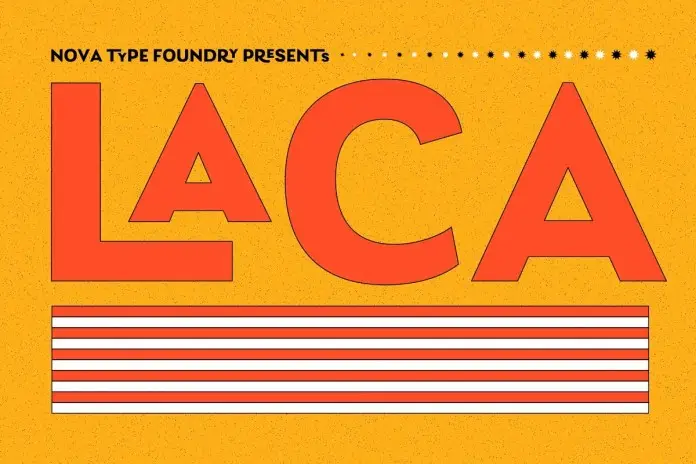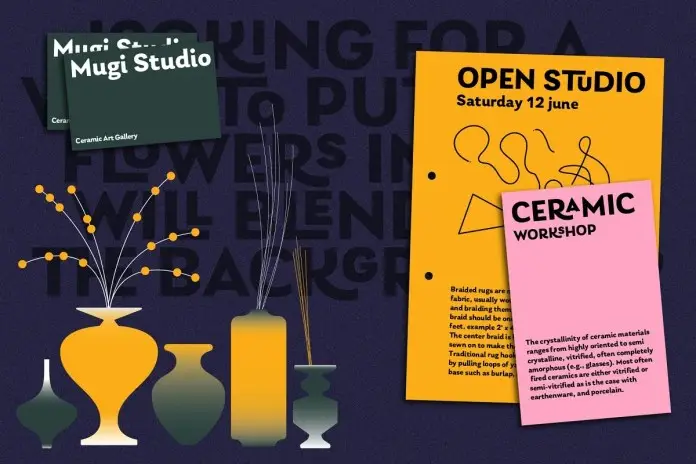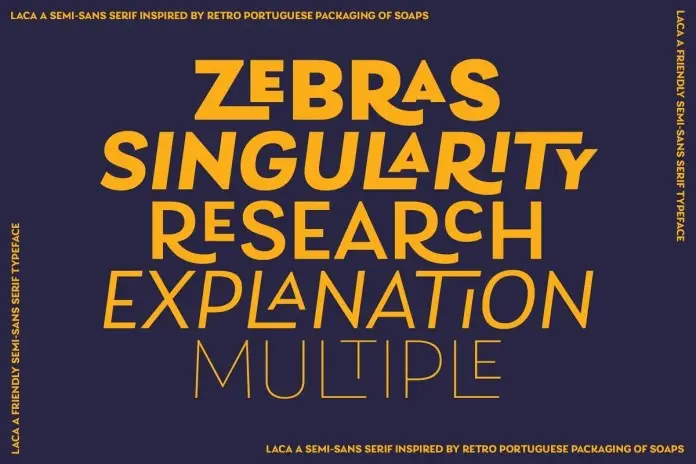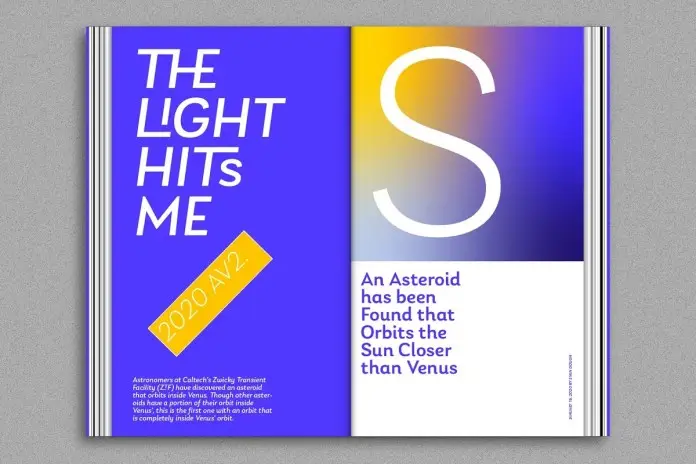
Laca Sans Serif Font
Laca Sans Serif Font is a modern and versatile typeface designed to elevate your design projects. With its clean lines and contemporary aesthetic, this font is perfect for a variety of applications including branding, logos, web design, and print materials.
• Weights: Light, Regular, Medium, Bold
• Ideal for creating eye-catching headlines and body text.
• Use in both digital and print formats for a cohesive brand identity.
• Pair with complementary serif fonts for a balanced typographic approach.